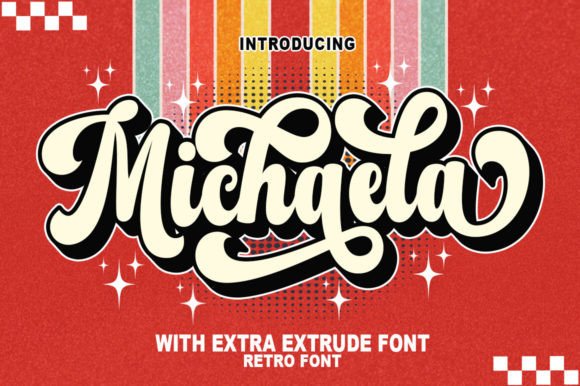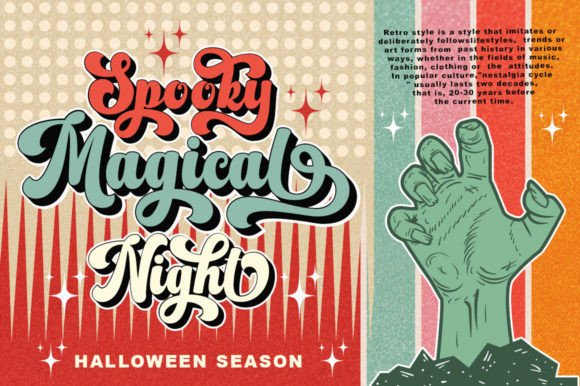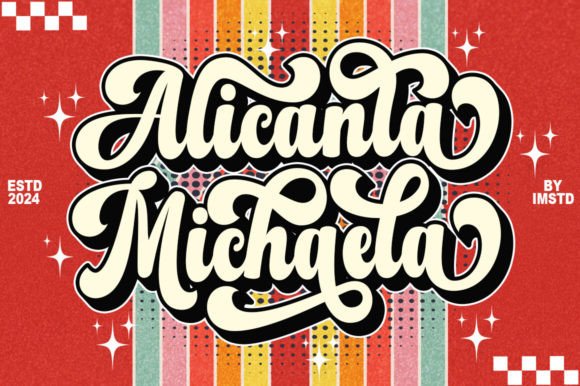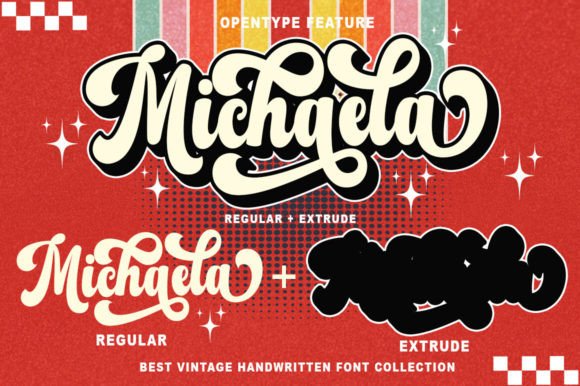
Michaela Font: Groovy Display Font for Retro Designs & Halloween Projects
About the Michaela Font
From logos to headlines, the Michaela Font is the perfect choice for making a lasting impression. Michaela Display Duo is delightfully nostalgic and delivers a great display font. Use this display font to add a special retro touch to any design idea you can think of! Expertly designed to be a true favorite, this font has the potential to take your every creative idea to the next level!
Michaela excels as a display font for headlines, short text blocks on posters, and branding elements requiring a retro feel. Its nostalgic charm works well for projects aiming for a vintage aesthetic, particularly in food and beverage, fashion, or entertainment. Avoid using Michaela for body text or UI elements; its decorative nature compromises readability in extended passages.
Pairing Michaela with a clean sans-serif like Open Sans for body copy creates a strong contrast, balancing its playful retro style with modern clarity. Alternatively, a classic serif like Garamond provides a sophisticated counterpoint, enhancing Michaela’s vintage appeal while maintaining visual hierarchy.
Its core personality is undeniably playful and nostalgic, conveying a sense of warmth and approachability without being overly childish. This makes it suitable for brands looking to project a friendly, retro-inspired identity.
Michaela Font Usage Examples